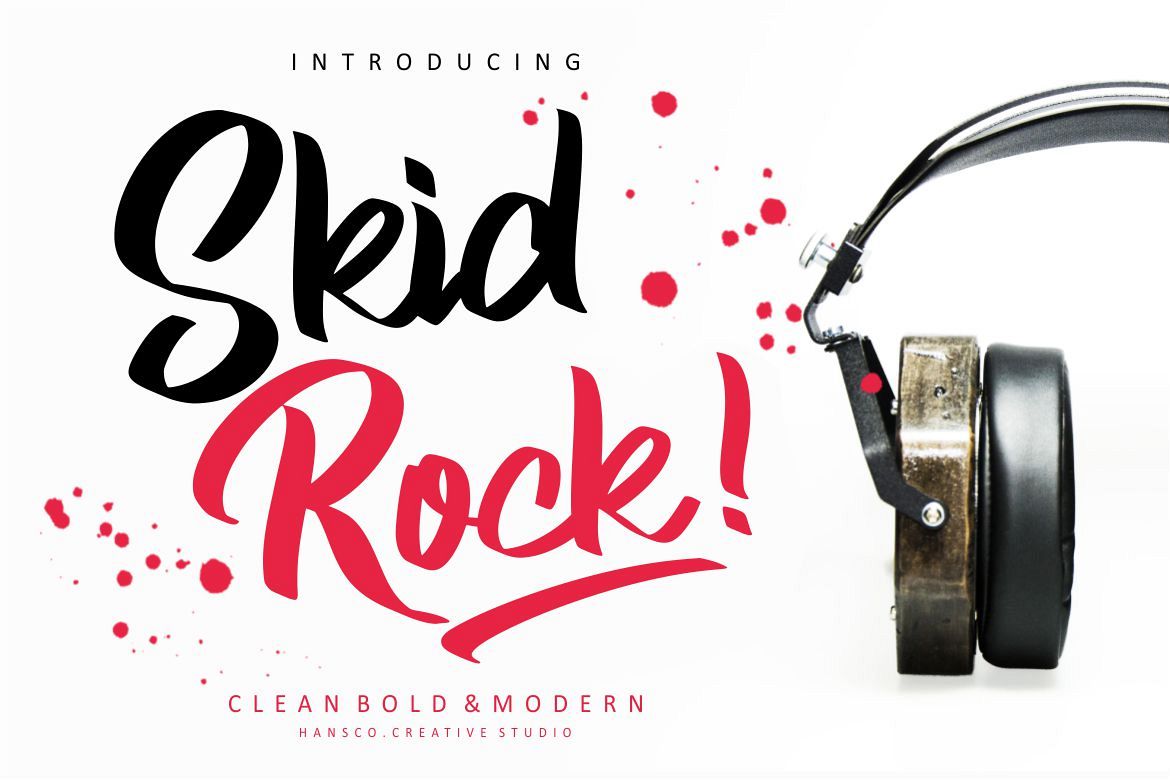
Skid Rock Font
Skid Rock is a modern, Bold and clean display typeface font that will perfect for multipurpose project. You can use for poster, logo, headline, quote, branding, fashion, shirt or anything else you want. It's good for display or just a text.